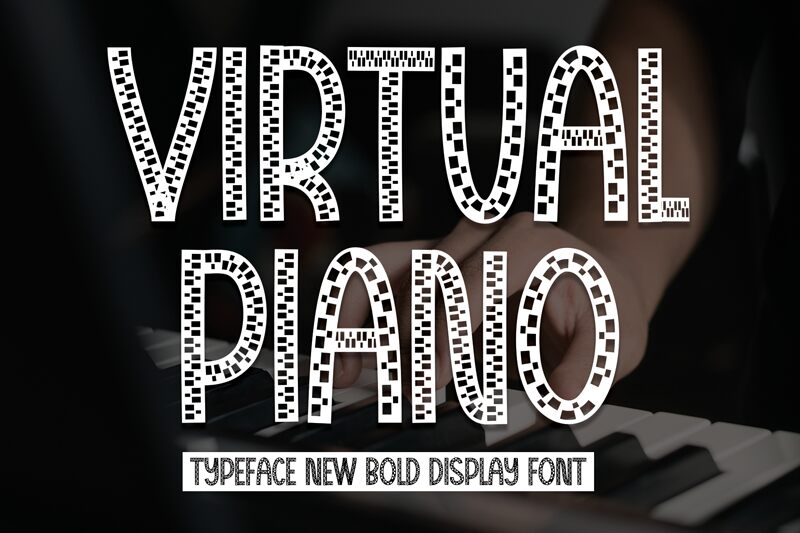
Virtual Piano
Virtual Piano, a typographical creation by Scratchones, dances to its own rhythm in the realm of display fonts. With a decorative style that mimics the elegant keys of a piano, this font strikes a chord between classic charm and modern flair. The condensed width of each character suggests a meticulous design philosophy that values space and impact equally. Its aesthetic appeal lies in its ability to capture the eye with geometric precision while maintaining an air of artistic expression.
The Virtual Piano font lends itself beautifully to creative projects where music, elegance, and sophistication are at play. From concert posters to music app interfaces, this font harmonizes with themes that demand a touch of creativity without sacrificing readability. Its distinctive appearance ensures that any text set in Virtual Piano will perform with the grace of a well-composed symphony on the page or screen.